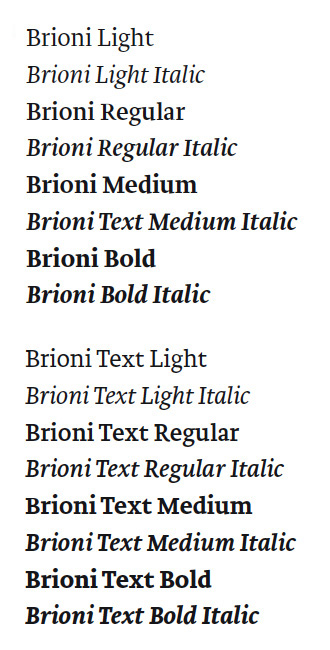
Brioni & Brioni Text (Typotheque)
Brioni was designed by Nikola Djurek in 2008.
Brioni: An elegant typeface suitable for setting books and magazines.
Brioni developed spontaneously from practice with a broad-nib pen,
but the result is a hybrid of calligraphic influences and subtle manipulation
of the stroke terminals.
Brioni Text: A sturdy slab serif for text of all sizes, but especially suitable
for fine print. Its proportions and colours make it suitable for any
running text. A highly functional typeface family that is easy to work
with and inviting to read.
Beim ersten Draufschauen kam mir die Assoziation TEFF Lexicon, vorallem bei Medium Text, was ja nichts schlechtes heißen mag :D Ach, vielleicht spinn ich auch …